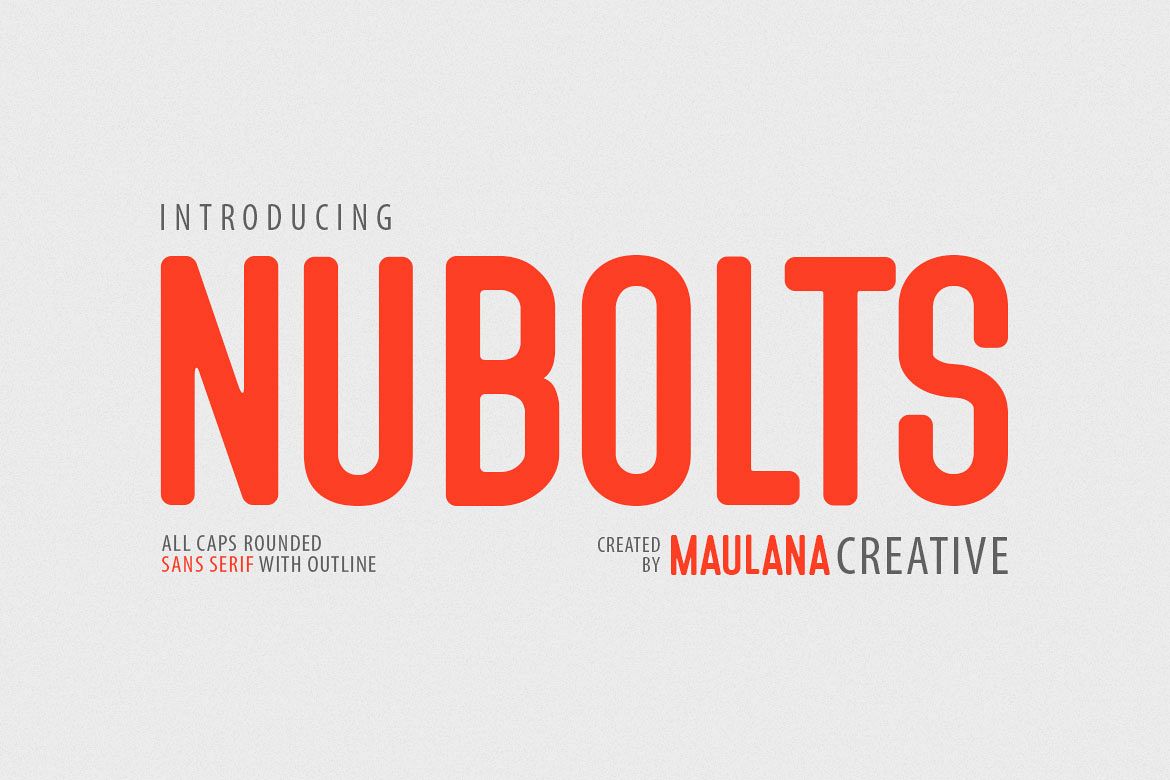
Nubolts Rounded Sans Family Font
Nubolts Rounded Sans is a bold sans serif with outline, outline bold & solid font files. Nubolts Rounded Sans is perfectly suited to branding, logos, magazines, films, website, headlines, titles, captions, games, apps, posters, t-shirts and more.